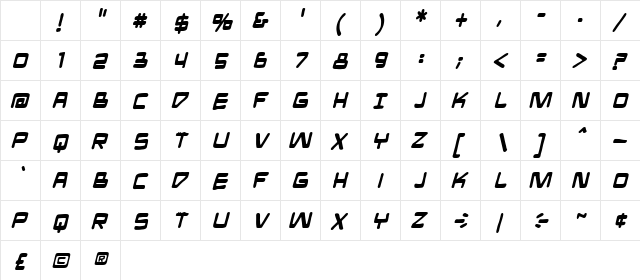
ManMachine BB is a composed and adaptable typeface that performs quietly and consistently across a wide range of design contexts. The slanted form adds forward momentum and visual energy. Its bold stroke weight gives it real presence on the page.
Pro Tip: Use ManMachine BB for emphasis, pull quotes, and subheadings where its slanted energy can add rhythm to the layout.